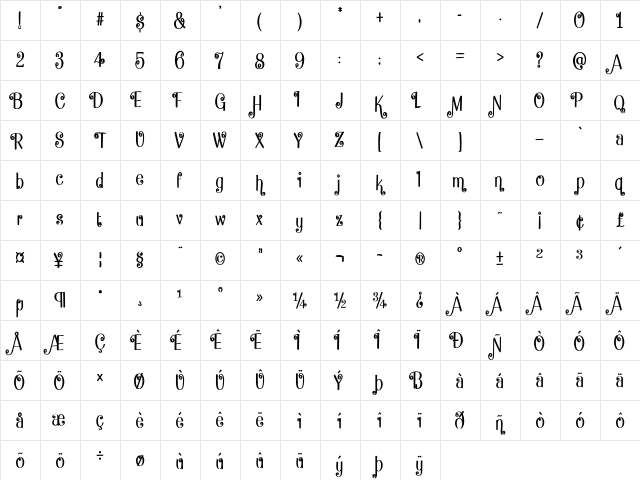
Flying Dahlia Condensed Bold
Style: Condensed Bold
Flying Dahlia Family
Flying Dahlia Condensed Bold
Complete Flying Dahlia Condensed Bold glyph index. Displaying only characters natively supported by Flying Dahlia Condensed Bold font.
Design Context for Flying Dahlia
Flying Dahlia is a composed and adaptable typeface that performs quietly and consistently across a wide range of design contexts. Its bold stroke weight gives it real presence on the page. Its narrow stance lets it pack a punch even in space-constrained designs.